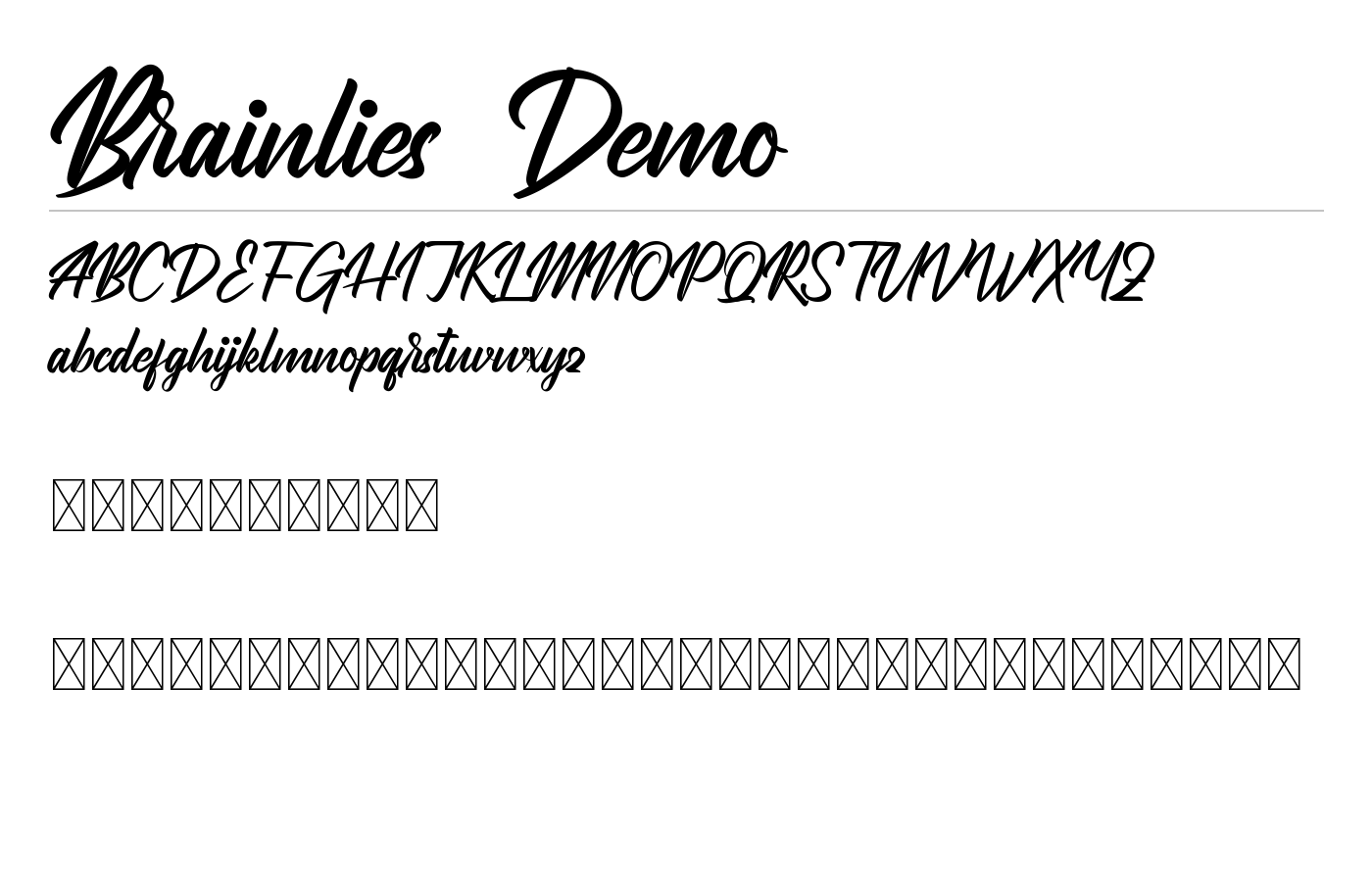
Brainlies Demo is a lively and stylish script font with fluid, connected strokes that give it an elegant yet casual vibe. Its moderately high contrast and smooth curves convey a personal, handwritten feel, making it ideal for branding, invitations, and creative headlines where a warm, approachable tone is desired. This font works especially well when you want to add a touch of sophistication without sacrificing friendliness or readability.
Brainlies Demo Font
About Brainlies Demo Font